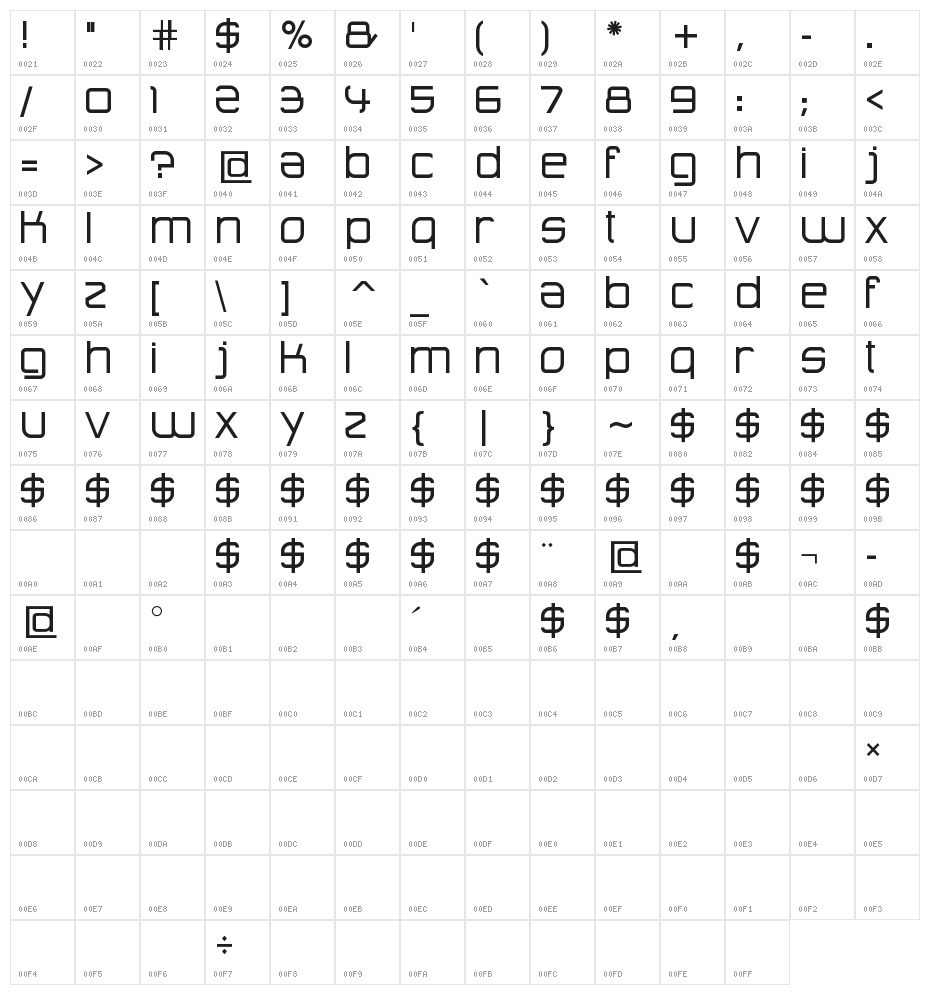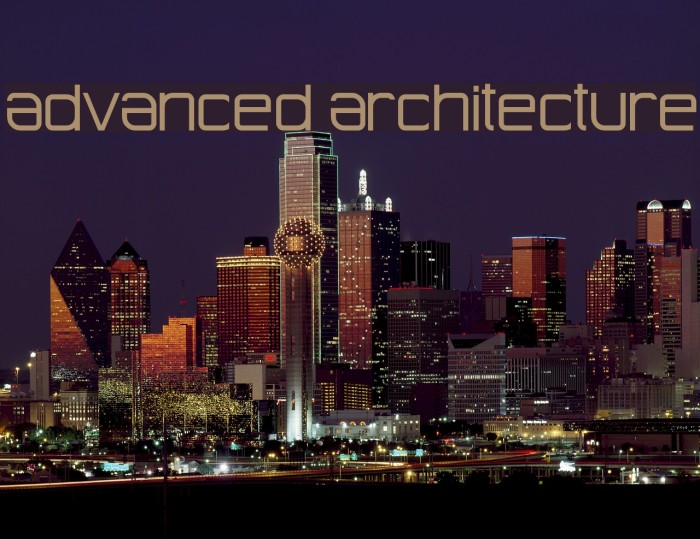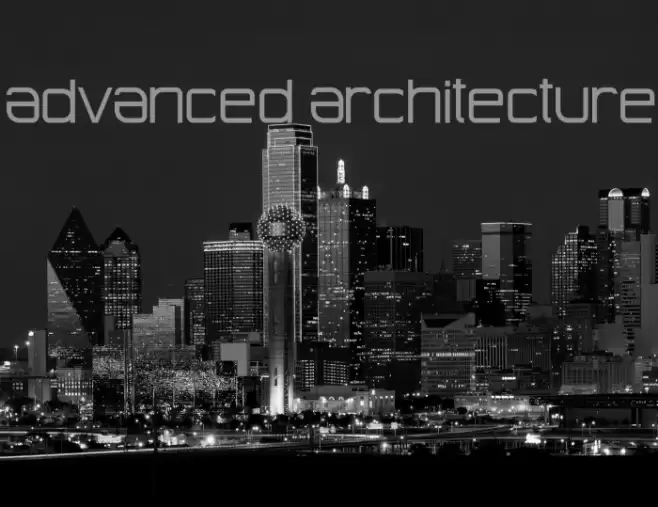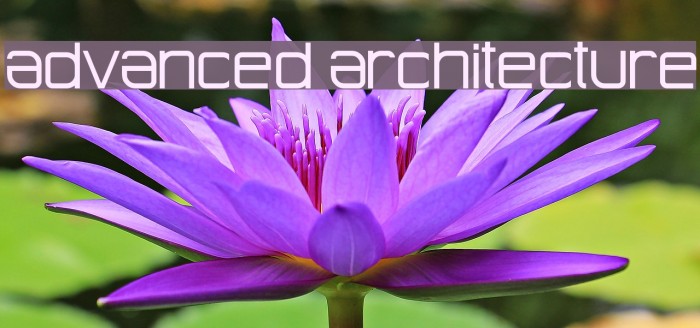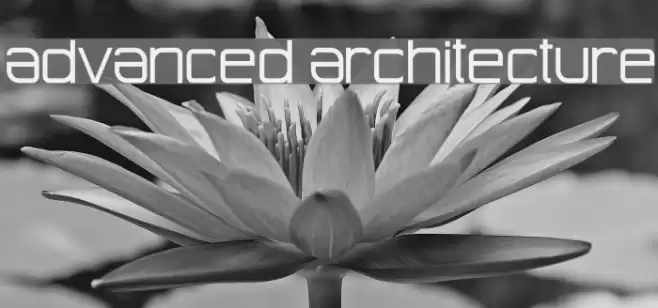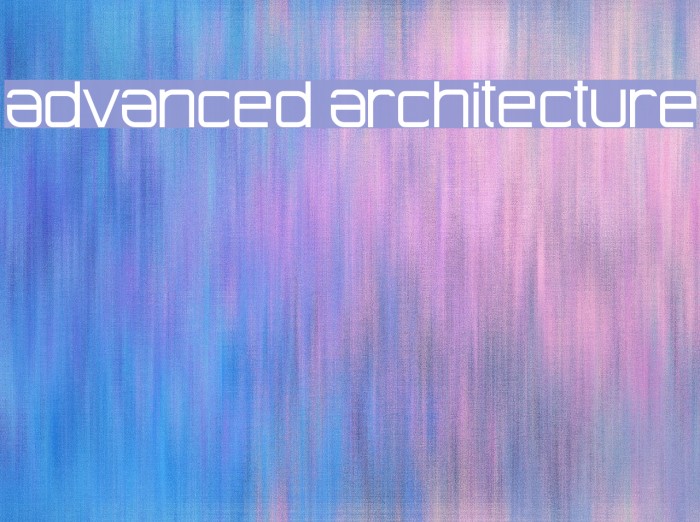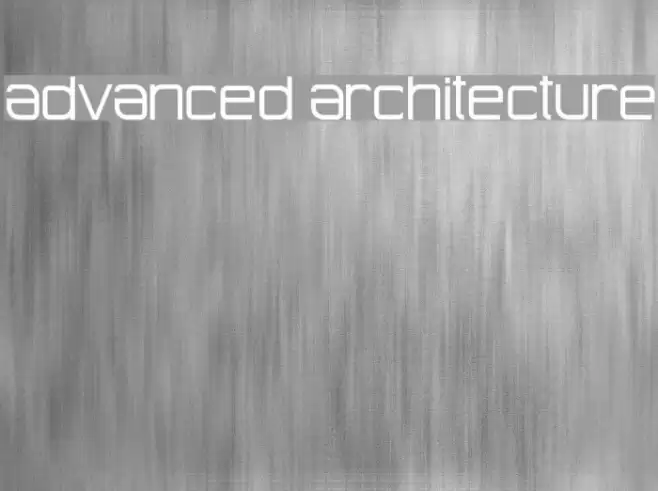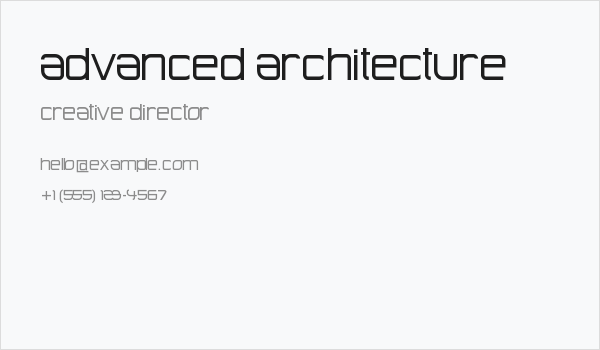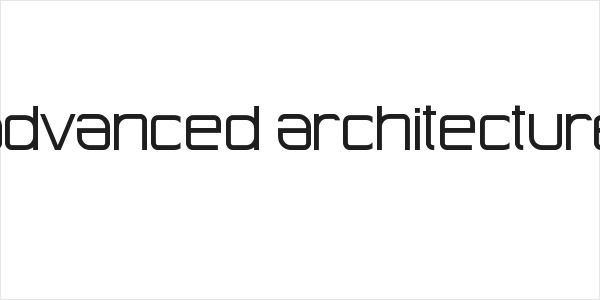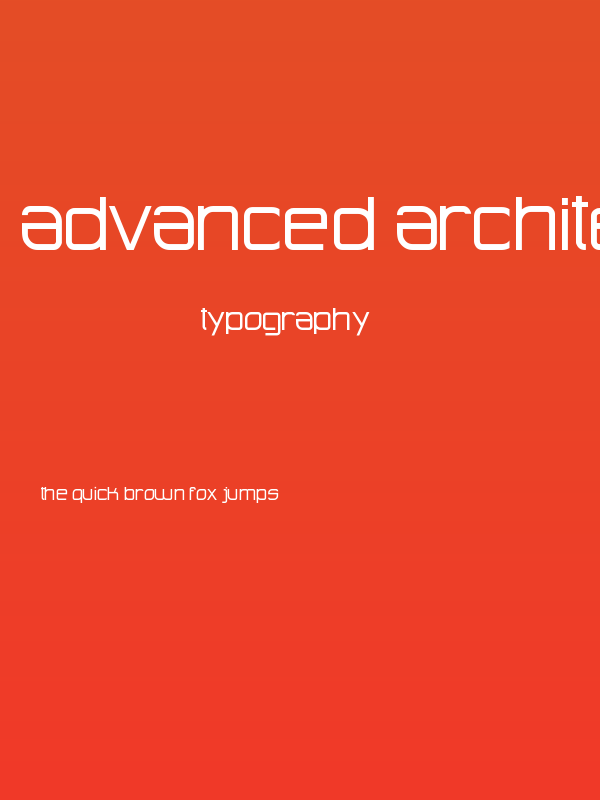
Advanced Architecture Font
Advanced Architecture Description
This font features a modern, geometric design with clean lines and a structured appearance. The characters are uniform in height, with a consistent stroke width that gives a balanced and cohesive look. The font has a futuristic feel, with rounded edges and a minimalistic style that enhances readability. The uppercase and lowercase letters maintain a similar width, contributing to a harmonious visual flow. The numerals are distinct and easy to differentiate, while the special characters are designed to complement the overall aesthetic. This font is versatile, suitable for both digital and print media, and can be used to convey a sense of innovation and sophistication.
| Proposed Projects | Ideal for technology branding, modern web design, innovative product packaging, and futuristic advertising campaigns. |